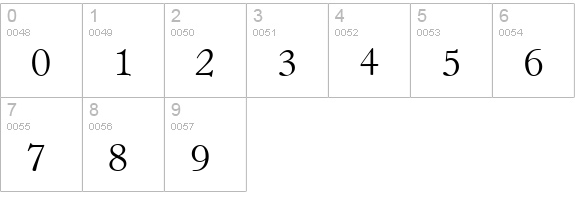
Hastings-Regular is the standard, neutral variant in the Hastings typeface family \xE2\x80\x94 well suited to general body text, paragraphs, and standard typographic work.
Hastings-Regular is a versatile and modern font that combines elegance with readability, making it perfect for a wide range of design projects. With its clean lines and balanced proportions, this typeface exudes a sense of sophistication and professionalism. Whether you're creating branding materials, editorial designs, or web content, Hastings-Regular is sure to make a bold statement. The best part? Hastings-Regular is available for free download at FontsMarket.com. You can easily add this stylish font to your collection without breaking the bank. Don't miss out on the opportunity to enhance your projects with the timeless appeal of Hastings-Regular. Download it today and elevate your designs to the next level.